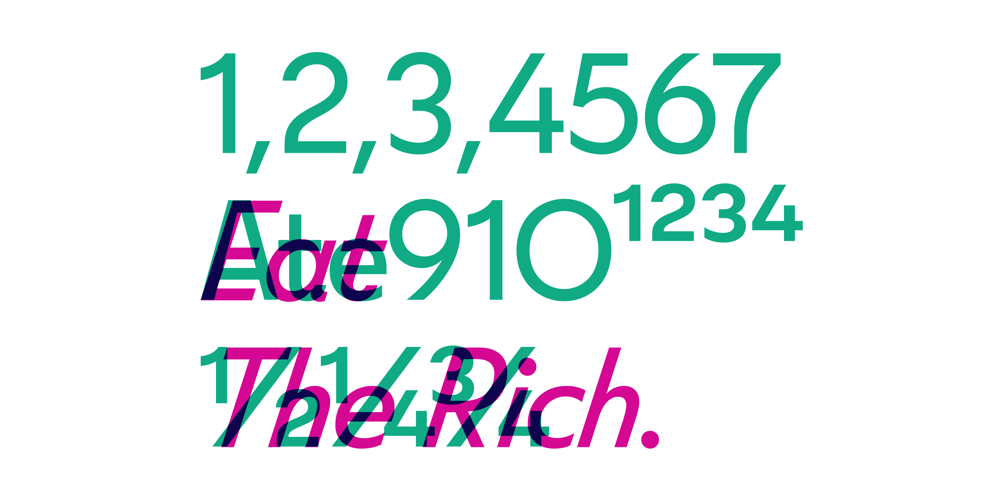
FS Split Sans
FS Split Sans font
FS Split Sans Font Family was designed by Jason Smith, Fernando Mello and published by Fontsmith. FS Split Sans contains 6 styles and family package options. Quirky and irregularFS Split is no ordinary typeface. Its irregular proportions make it unique, with round letters appearing wide, and straight letters narrow. Other quirks include its eclectic crossbars – the uppercase ‘A’ has an unusually low bar, while the bar on ‘G’ is particularly long. The uppercase has many interesting features in fact, including large counters, closed terminals on certain letters like ‘J’, and a cap-height that lines up with ascenders. The lowercase also holds surprises – the dots on ‘i’ and ‘j’ are unusually large, and some characters, such as ‘g’, feature double-storey counters.An extreme but stylish italicThe italic versions of FS Split Sans and Serif are particularly striking. While similar in style to their upright, Roman versions, they take on a larger-than-usual 18-degree angle, making the forward-slant more dramatic. Although the main purpose of any italic is to help words and phrases stand out, this unique execution helps to make the italic variants of FS Split stylish fonts in their own right – they would work brilliantly on magazine covers, in titles and headlines, pull quotes, and even used commercially in logos and corporate branding.Serif and sans: a split personalityFS Split Sans and Serif have their differences but also their similarities, contrasting and complementing each other perfectly. This ‘love hate’ relationship inspired the name of the typeface family, and means the two variants provide a versatile, typographic palette for use in graphics and branding. While its proportions are similar to the sans, the serif has a bigger contrast between its weights of bold, regular and light, bracketed serifs, and different styles of terminals, some being straight and others ball-shaped. FS Split Sans has more subtlety and simplicity, with a smaller weight contrast, less flamboyant terminals, and more consistent counter sizes. The two variants are distinct yet alike, so can be used successfully either in isolation or together.